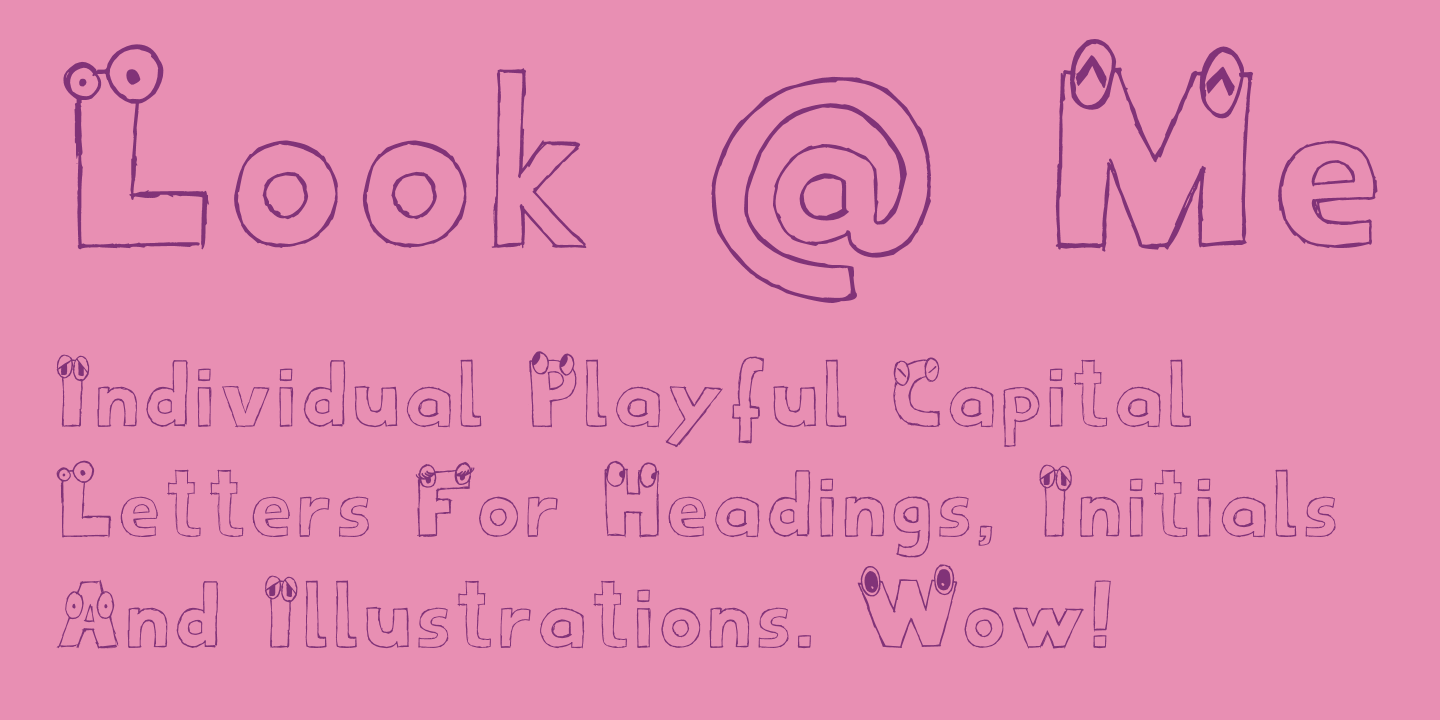
Look @ Me Font is ideal for attention-grabbing headlines, social media posts, poster designs, advertising campaigns, youth-oriented branding, gaming graphics, street art projects, music album covers, event flyers, merchandise design, and any creative project that demands bold visual impact and contemporary street style aesthetics.
What makes Look @ Me Font exciting is its rebellious and confident personality that instantly commands attention. This typeface embodies the spirit of urban culture with its edgy design elements and unconventional character shapes. The font's bold presence and distinctive styling make it perfect for brands and projects that want to break through the noise and make a memorable impression on their target audience.
The Look @ Me Font family features various weights and stylistic alternatives, including regular, bold, and decorative variations. This comprehensive collection allows designers to create dynamic typography hierarchies while maintaining the font's characteristic attitude. Special characters and symbols complement the main typeface, providing additional creative possibilities for unique design applications.
When exploring modern typography options, Look @ Me Font Free Download offers designers an exceptional opportunity to work with a typeface that perfectly captures contemporary urban aesthetics. This font showcases innovative design thinking with its unique character construction and attention-grabbing visual elements that resonate with today's digital-native audiences.
Professional designers value Look @ Me Font for its ability to convey confidence and energy across various media platforms. The font's strong visual presence makes it particularly effective for brands targeting younger demographics or companies wanting to establish a bold, unconventional identity. Its versatility extends from digital applications like websites and social media to print materials such as posters and packaging.
The contemporary appeal of Look @ Me Font lies in its perfect balance between readability and artistic expression. While maintaining legibility across different sizes and applications, the font never compromises on its distinctive character. This makes it an excellent choice for projects requiring both functional typography and strong visual impact.
For creative professionals seeking to make powerful design statements, Look @ Me Font represents the perfect fusion of street culture aesthetics and professional typography standards. Its bold personality and versatile application range make it an invaluable asset for any designer's toolkit, ensuring projects stand out in today's competitive visual landscape.